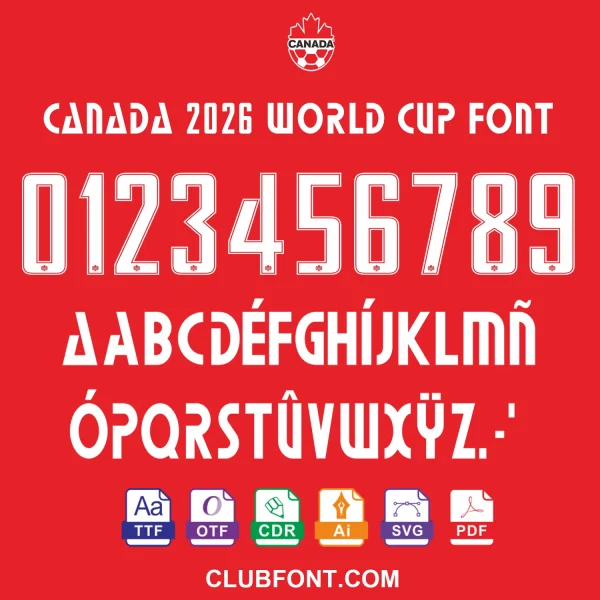
🇨🇦 Score Big with the Official Canada 2026 World Cup Font
Are you ready for the biggest sporting event coming to North America? Whether you are designing custom jerseys, creating fan banners, or working on official merchandise, our Canada 2026 World Cup Font package gives you the exact typography you need to capture the spirit of the tournament.
âš½ Why Choose Our 2026 World Cup Typography?
This font isn’t just a typeface; it’s a piece of soccer history. Designed to match the energetic and modern aesthetic of the upcoming tournament, these fonts feature clean lines, dynamic spacing, and a sporty serif/sans-serif style that pops on screen-printed jerseys and digital graphics alike.